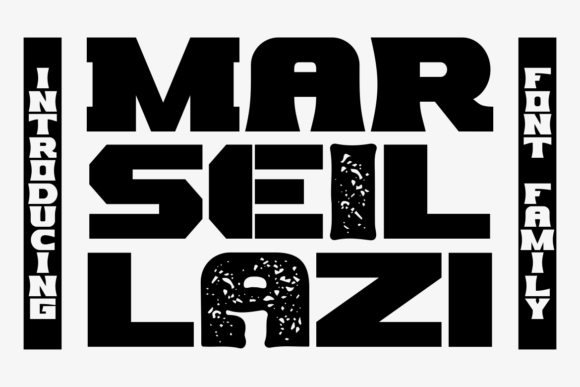
Introducing Marseilazi Font - the epitome of boldness and power! With its nine strong and captivating styles, this display font is sure to turn heads and leave a lasting impression. Created by the talented putracetol, Marseilazi Font is a force to be reckoned with in the world of typography.
This versatile font family is designed to seamlessly blend into any design, be it logos, titles, headlines, posters, films, magazines, or business materials. Its thickness and strength make it a perfect companion for various other fonts and themes, allowing you to create stunning and eye-catching compositions.
The nine available versions of Marseilazi Font offer a vast array of choices to suit your creative needs. From the classic elegance of serif to the modern and sleek sans-serif, from the edgy and energetic sport style to the raw and gritty grunge, this font has it all. And that's not all - slab, stencil, display, and more styles await your exploration, providing endless possibilities for your design projects.
When you choose Marseilazi Font, you choose to make a statement. Its bold and commanding presence demands attention and effortlessly elevates your designs to new heights. Leave your audience in awe with the sheer power emanating from every letter and word.
But Marseilazi Font is not just about aesthetics. It is a font that speaks to the emotions and captures the essence of your message. Let it convey strength, confidence, and passion in your personal names, or evoke excitement and curiosity in your magazine layouts. Whatever your creative vision may be, this font is here to bring it to life.